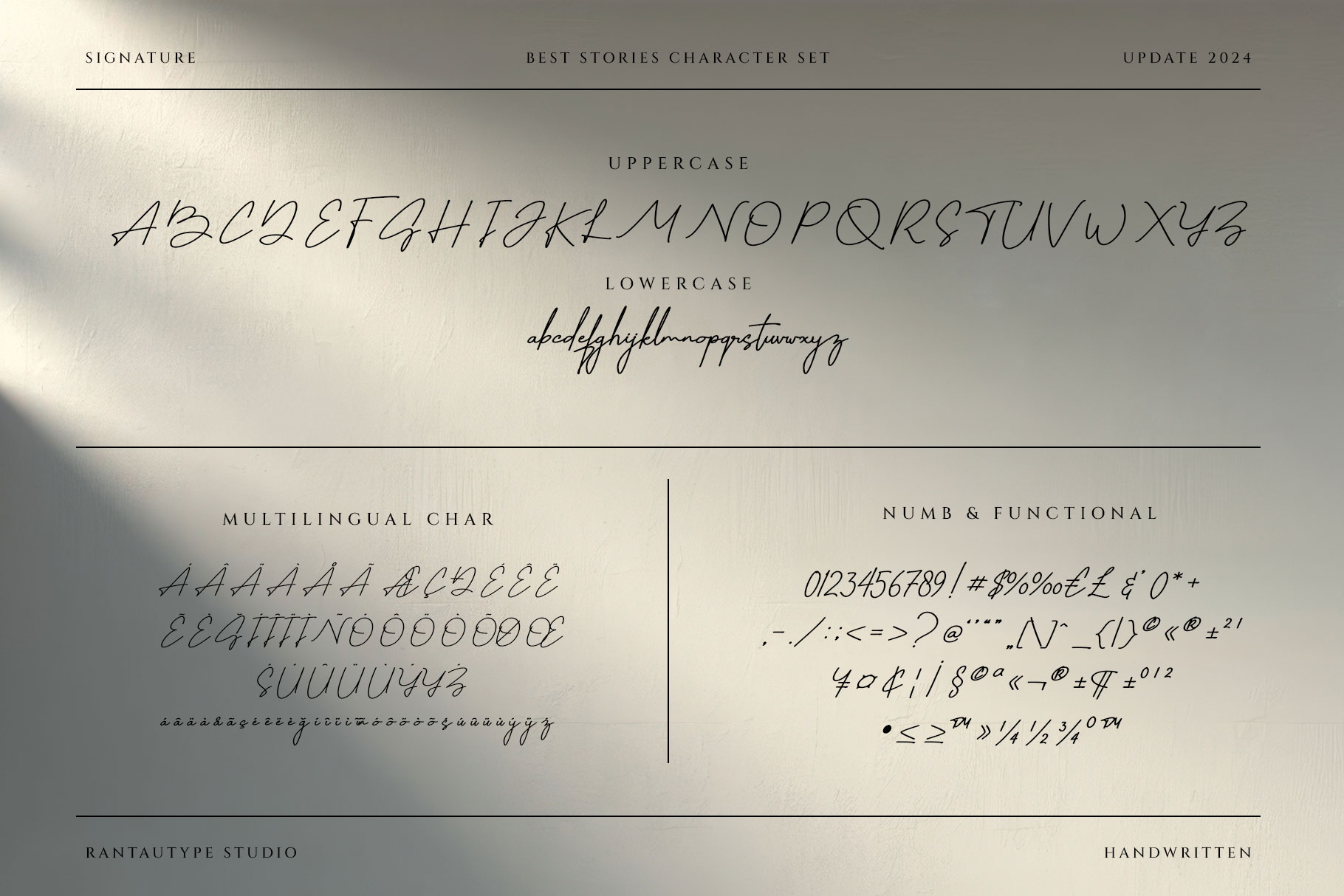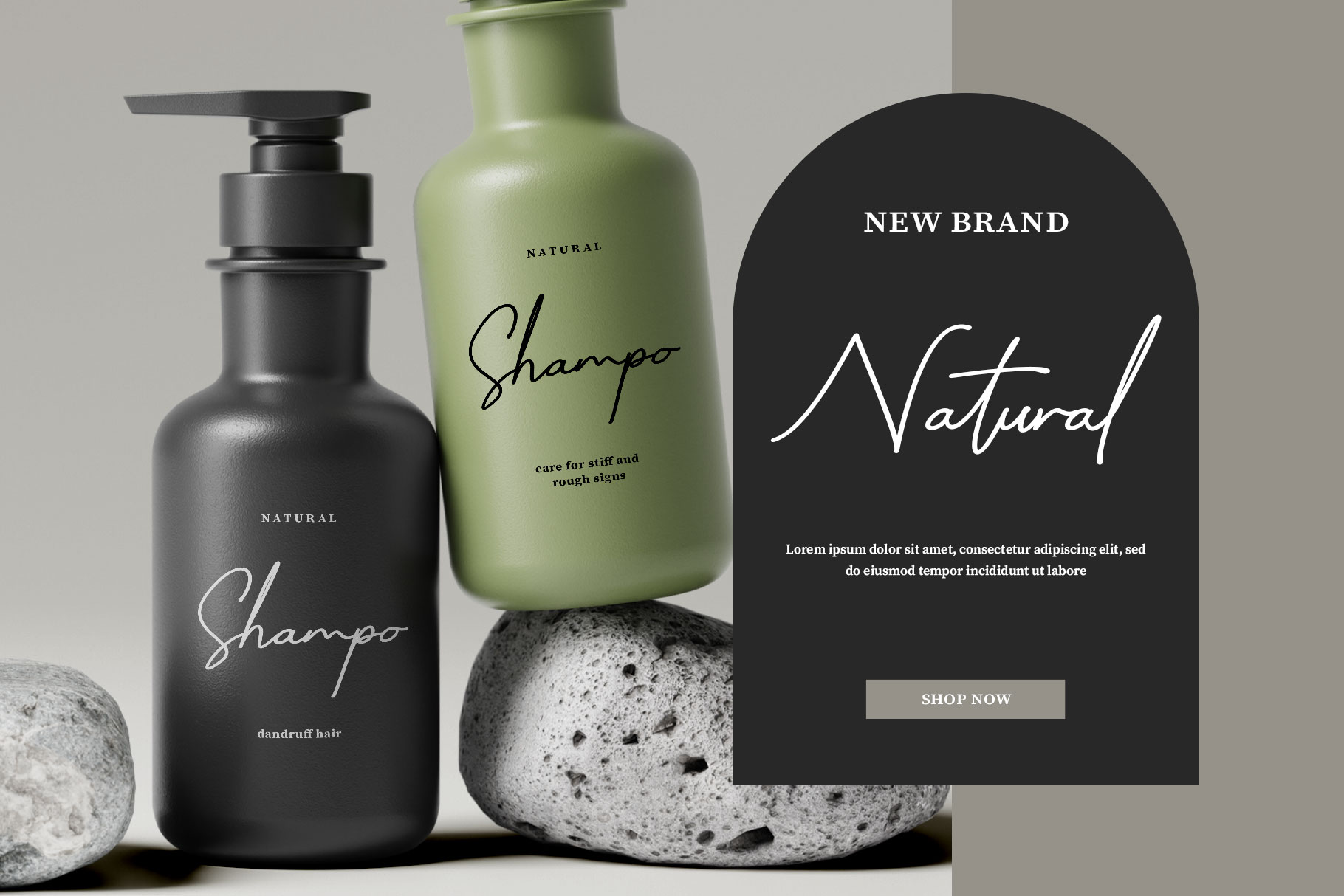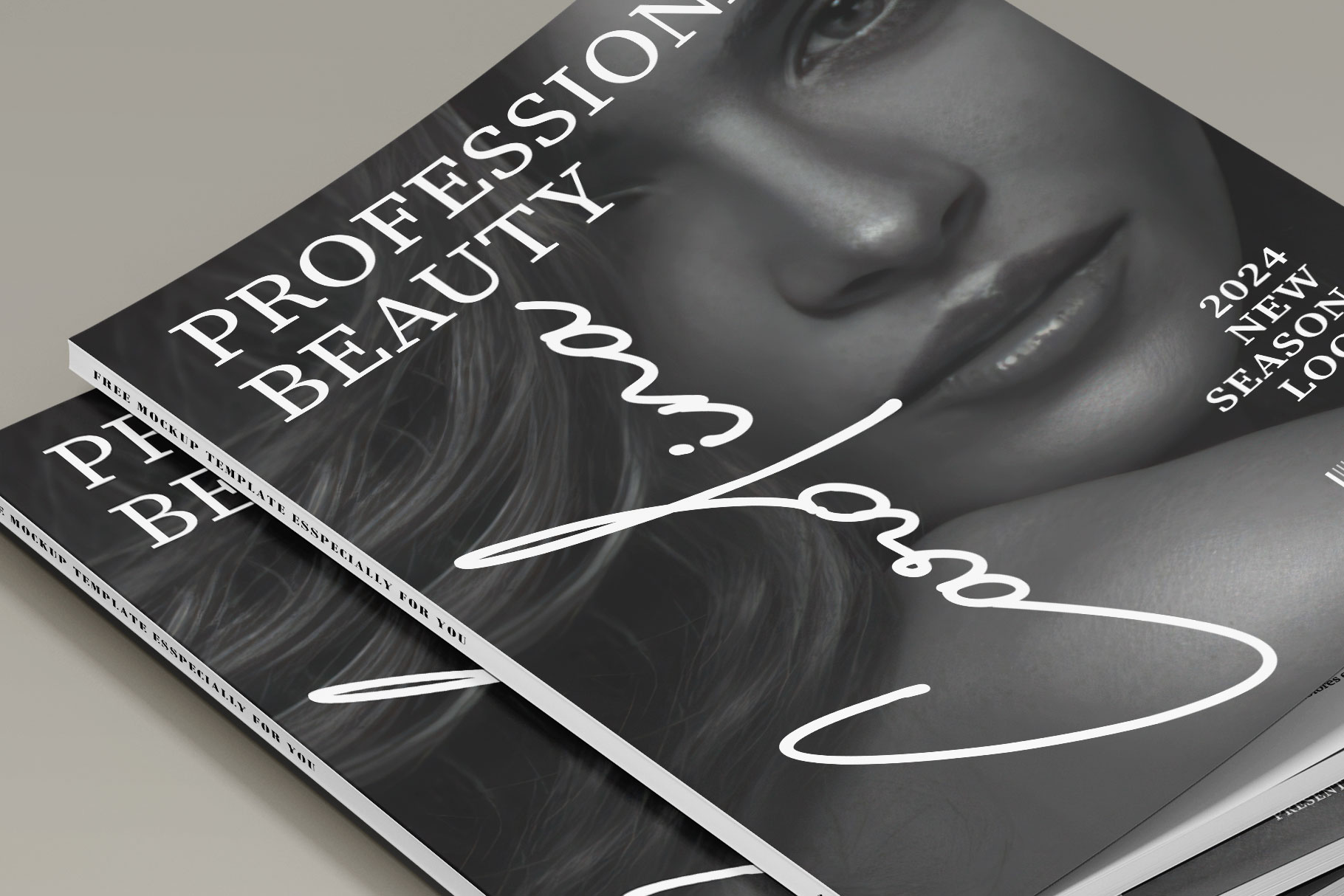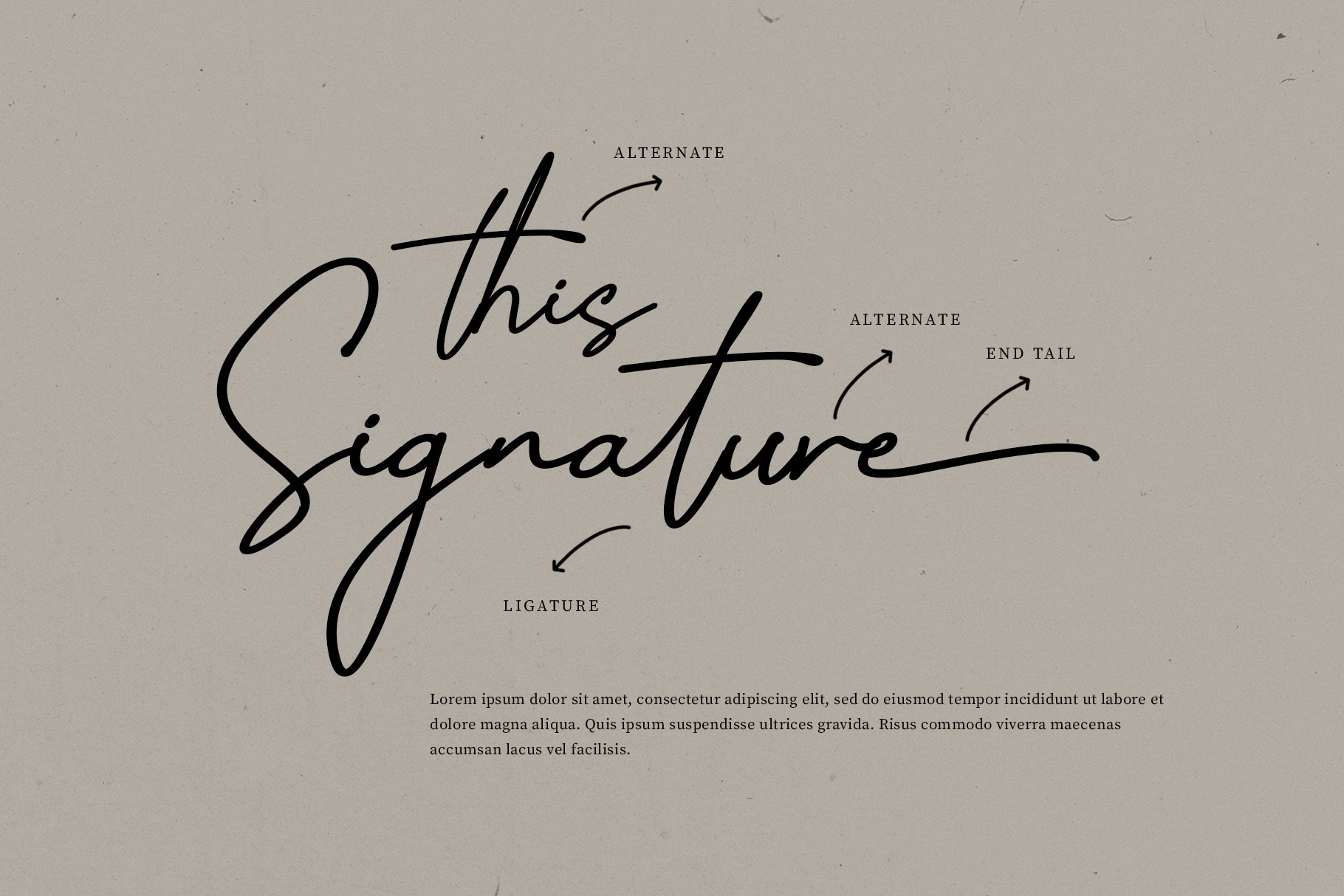
Best Stories Natural Handwritten Font
Best stories is natural handwritten font with personal style touch. I keep this font look elegant, classy and easy to use, Best stories come with alternate, ligature and support multilingual support.
Best stories is a perfectly choice for any creative endeavor, great choice for watermark on photography, branding, wedding event, signature or signature logo design, quotes, album cover, magazine, business card and many other design project with handwriten taste.